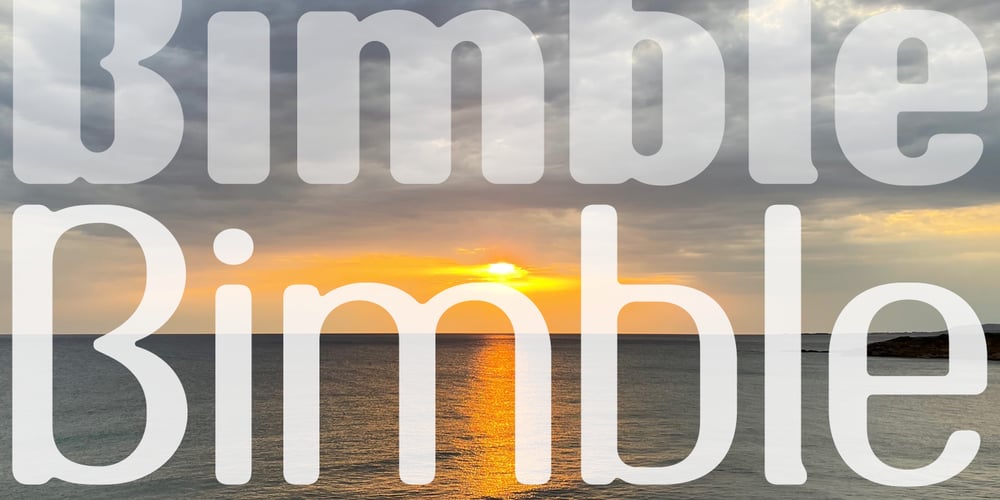
Bimble
Bimble font
Bimble Font Family was designed by Keith Bates and published by K-Type. Bimble contains 4 styles and family package options. Bimble is a semi-condensed, sans-serif family of friendly, rounded characters.